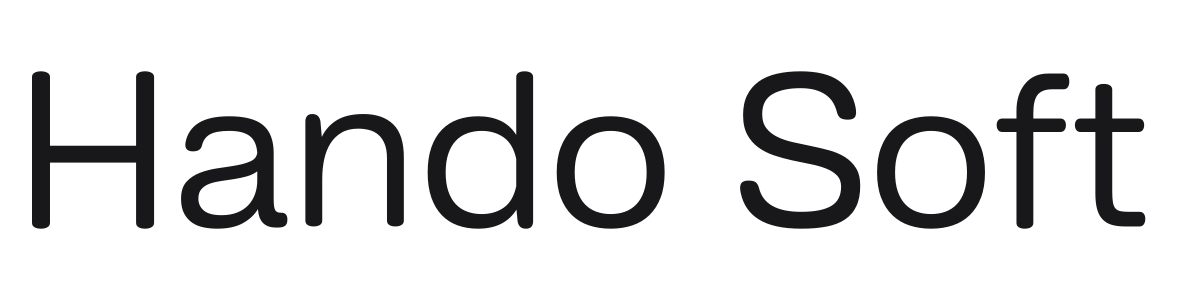
Hando Soft
by Eko Bimantara
Hando Soft is a contemporary humanist sans-serif with softly rounded terminals and an easy, approachable warmth. Its near-monoweight strokes and open apertures keep it highly legible across a range of sizes, from body copy to headline use. The design sits in that productive space between Swiss neutrality and friendly personality.